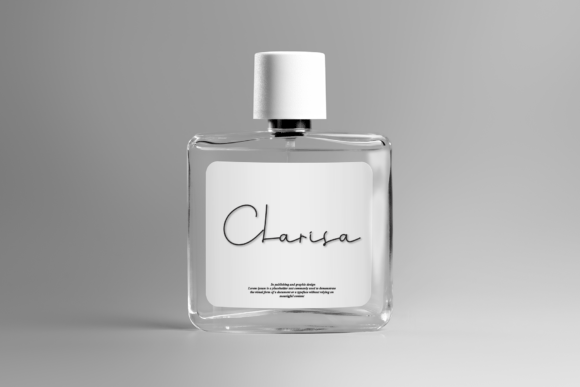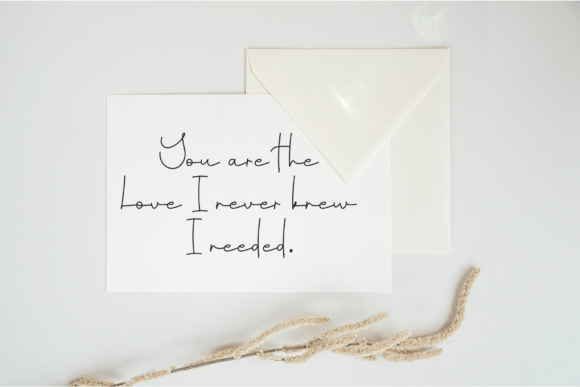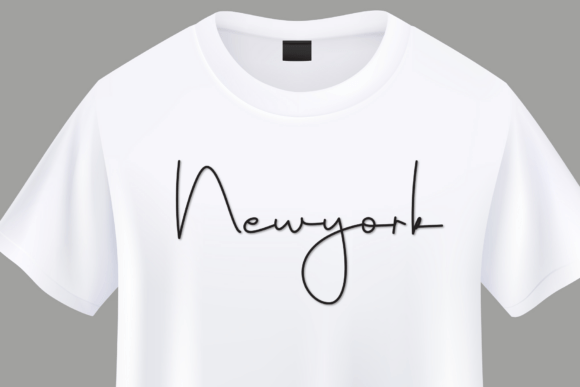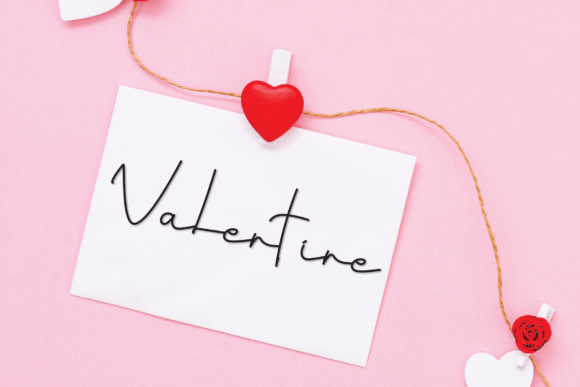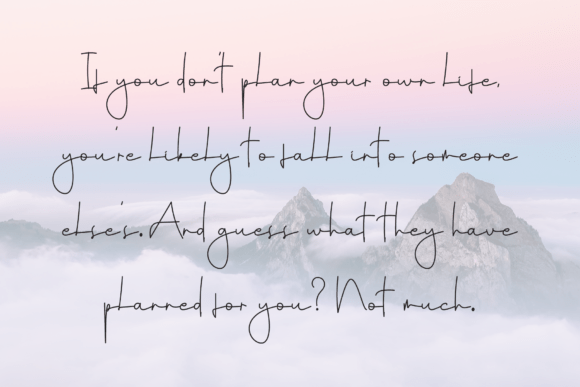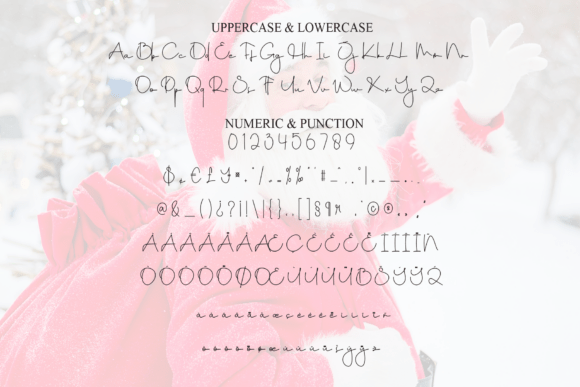
Introduction to Sinterclas Font Font
Fonts play a crucial role in design, and the Sinterclas Font font is a typeface that brings both character and versatility to any project. Whether you’re working on a branding project, a website, or a print design, the Sinterclas Font font offers a unique style that can elevate your work.
Bring a touch of modern cheer to your creative workshop with Sinterclas, a new-style handwritten font that radiates casual holiday charm.
This typeface features wide, breezy letterforms with a low-slung x-height and a relaxed, signature-style flow With its “weekend-casual” soul and approachable weight, Sinterclas is the premier choice for independent lifestyle branding, boutique festive stationery, holiday-themed merchandise, and airy “winter-vlog” social media headers.
Key Features of Sinterclas Font Font
Why Choose Sinterclas Font Font?
The Sinterclas Font font is more than just a typeface – it’s a design tool that helps you communicate your message with style and clarity. Its unique character set and versatile design make it suitable for a wide range of applications, from elegant invitations to bold headlines.
With its carefully crafted letterforms and balanced proportions, the Sinterclas Font font ensures readability and visual appeal across all mediums.
What makes Sinterclas Font font special?
The Sinterclas Font font stands out with its unique design, exceptional readability, and versatility across various design applications.